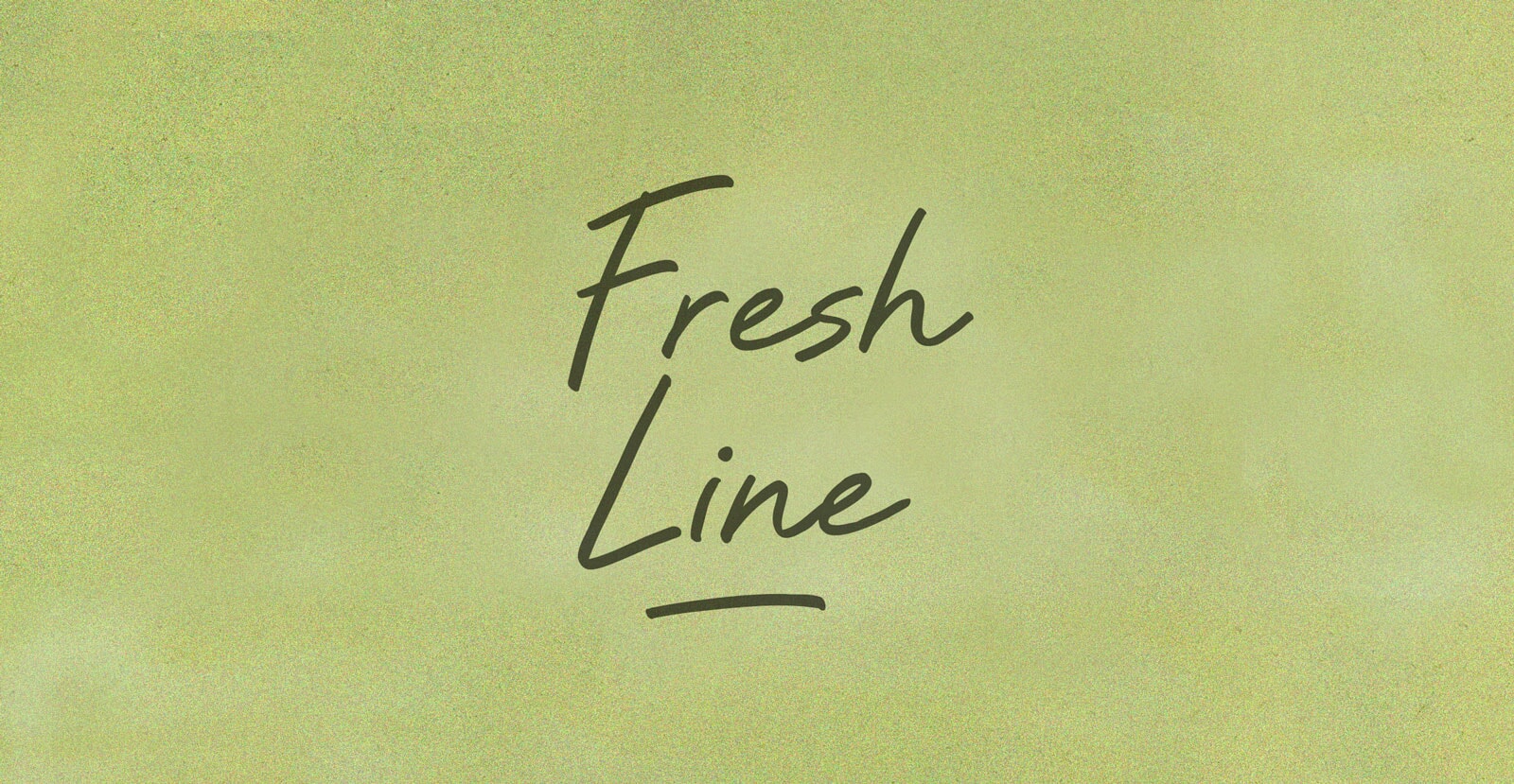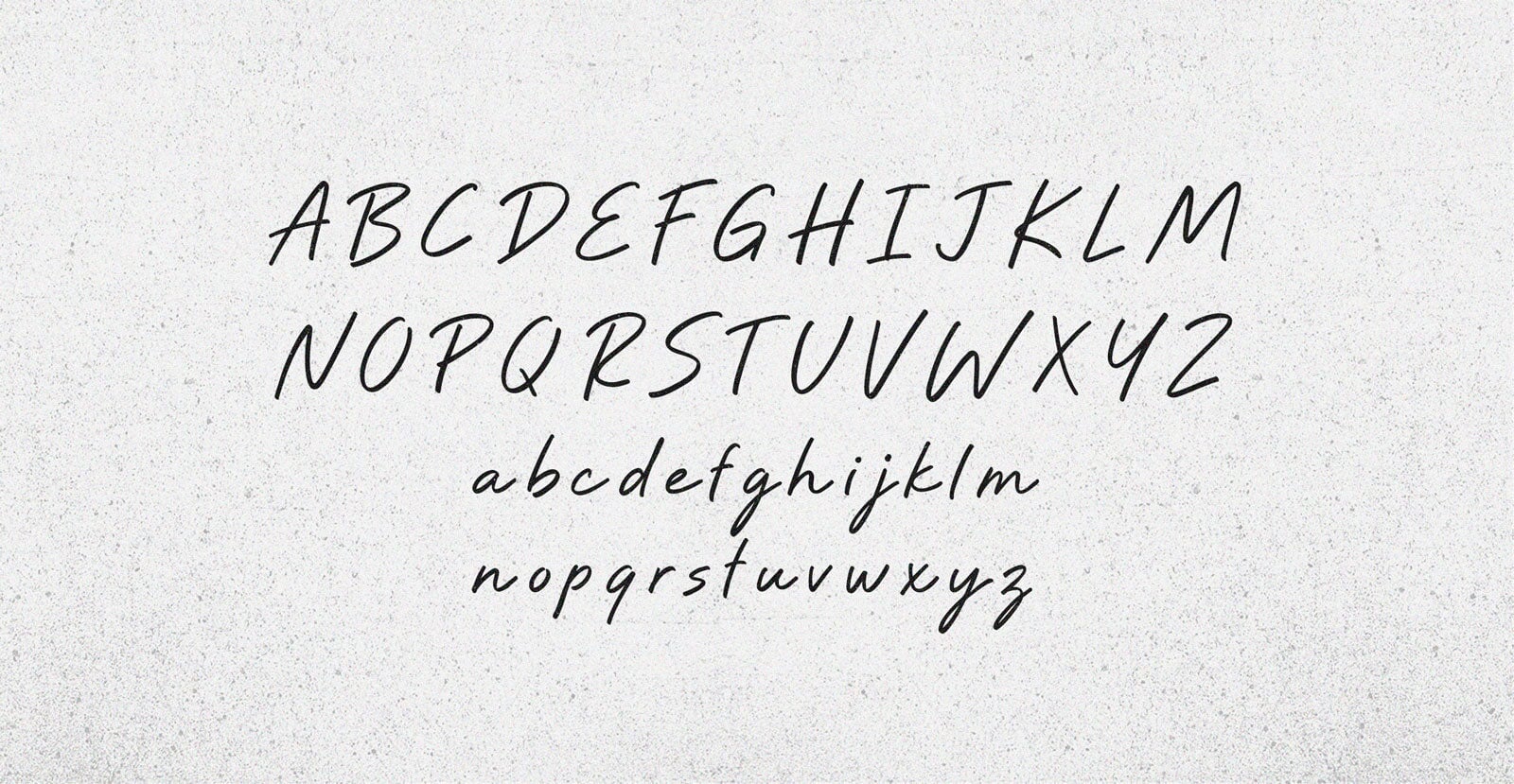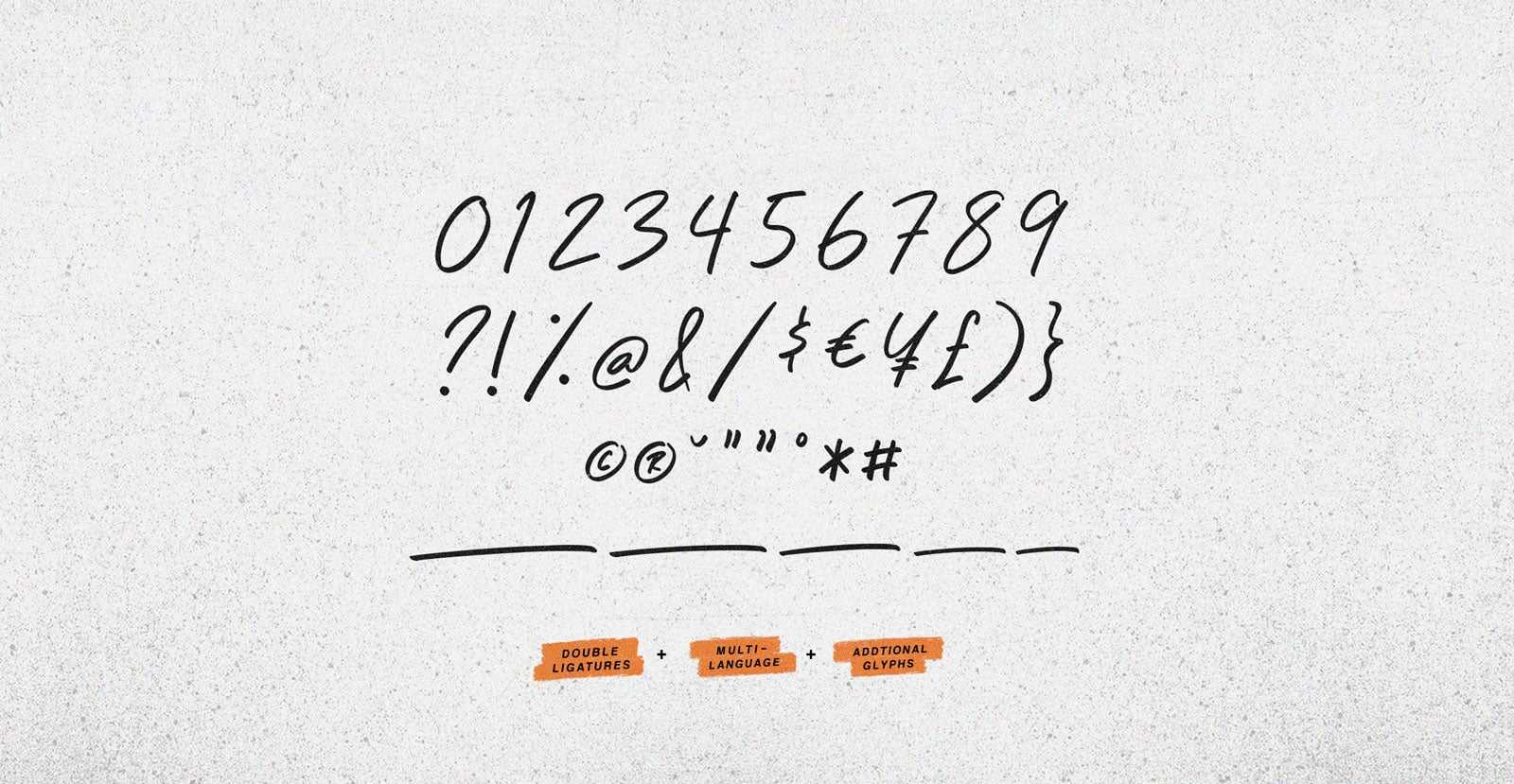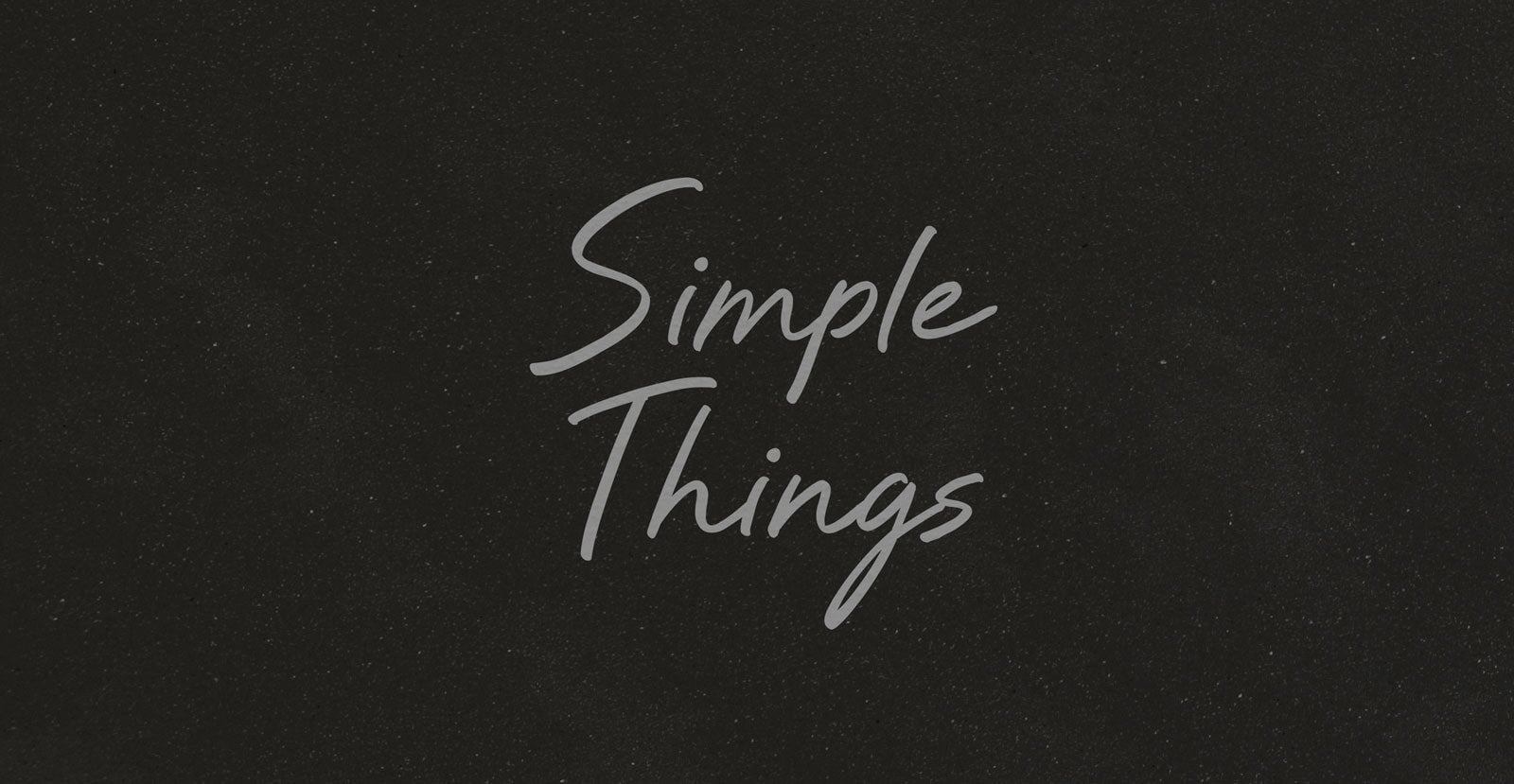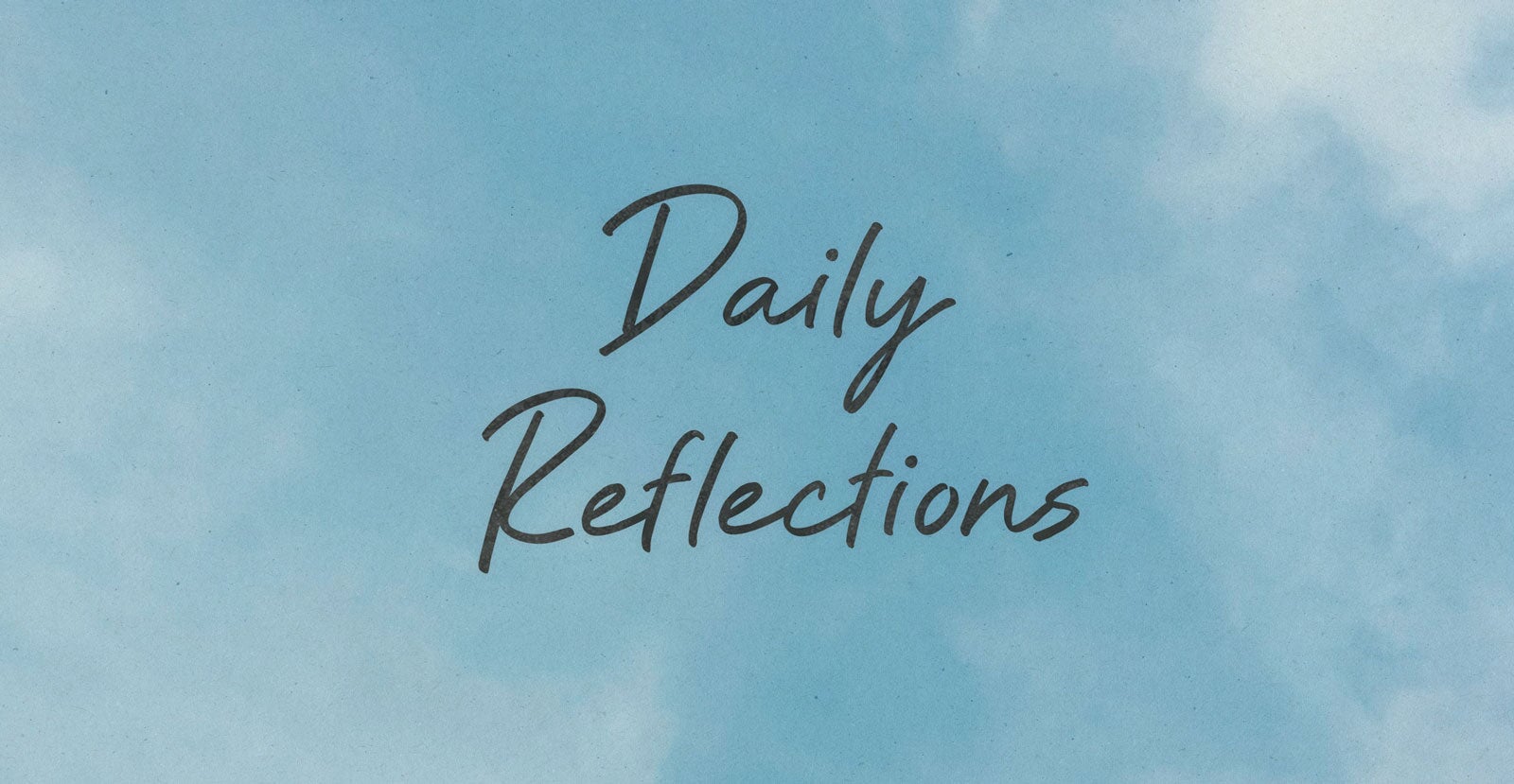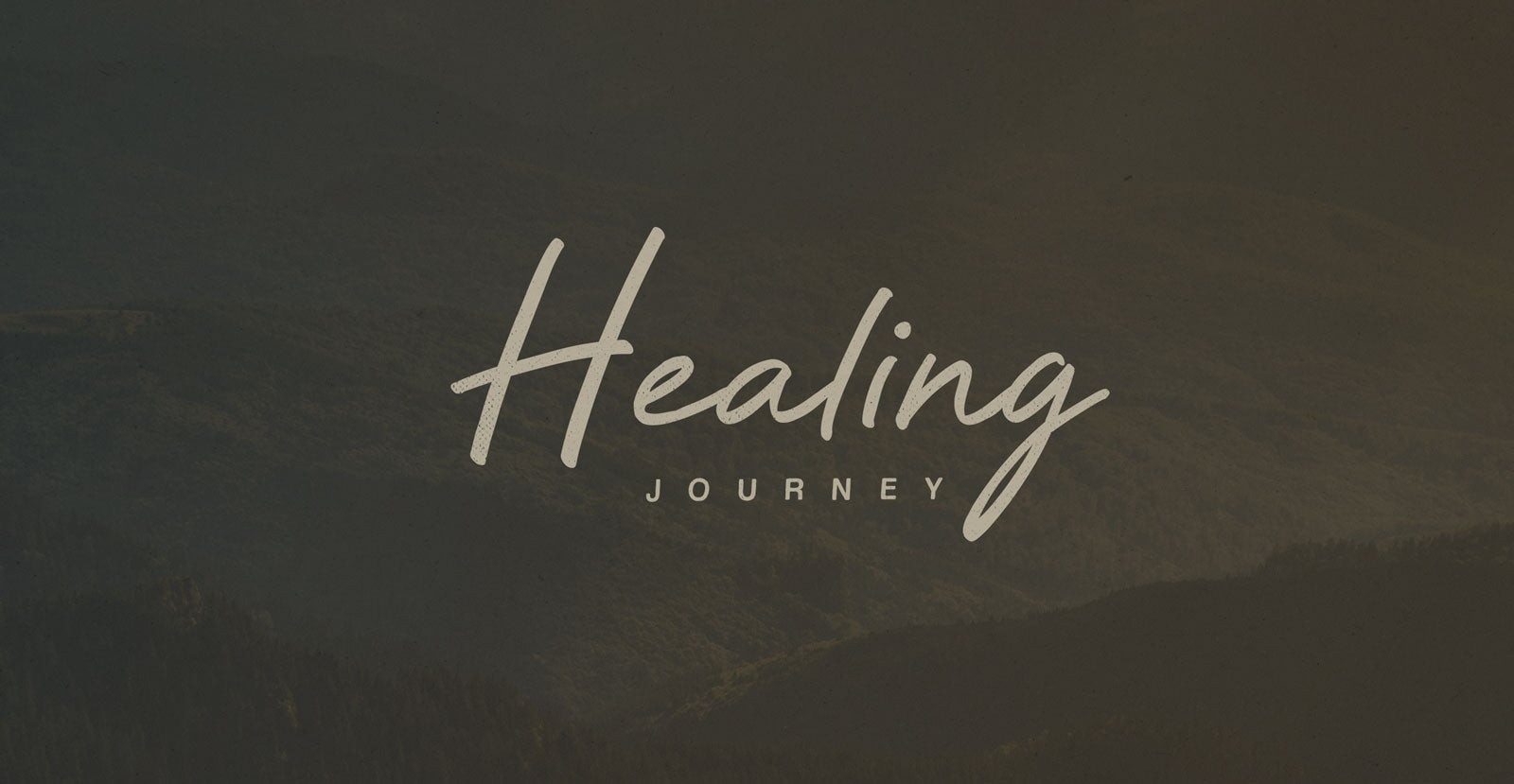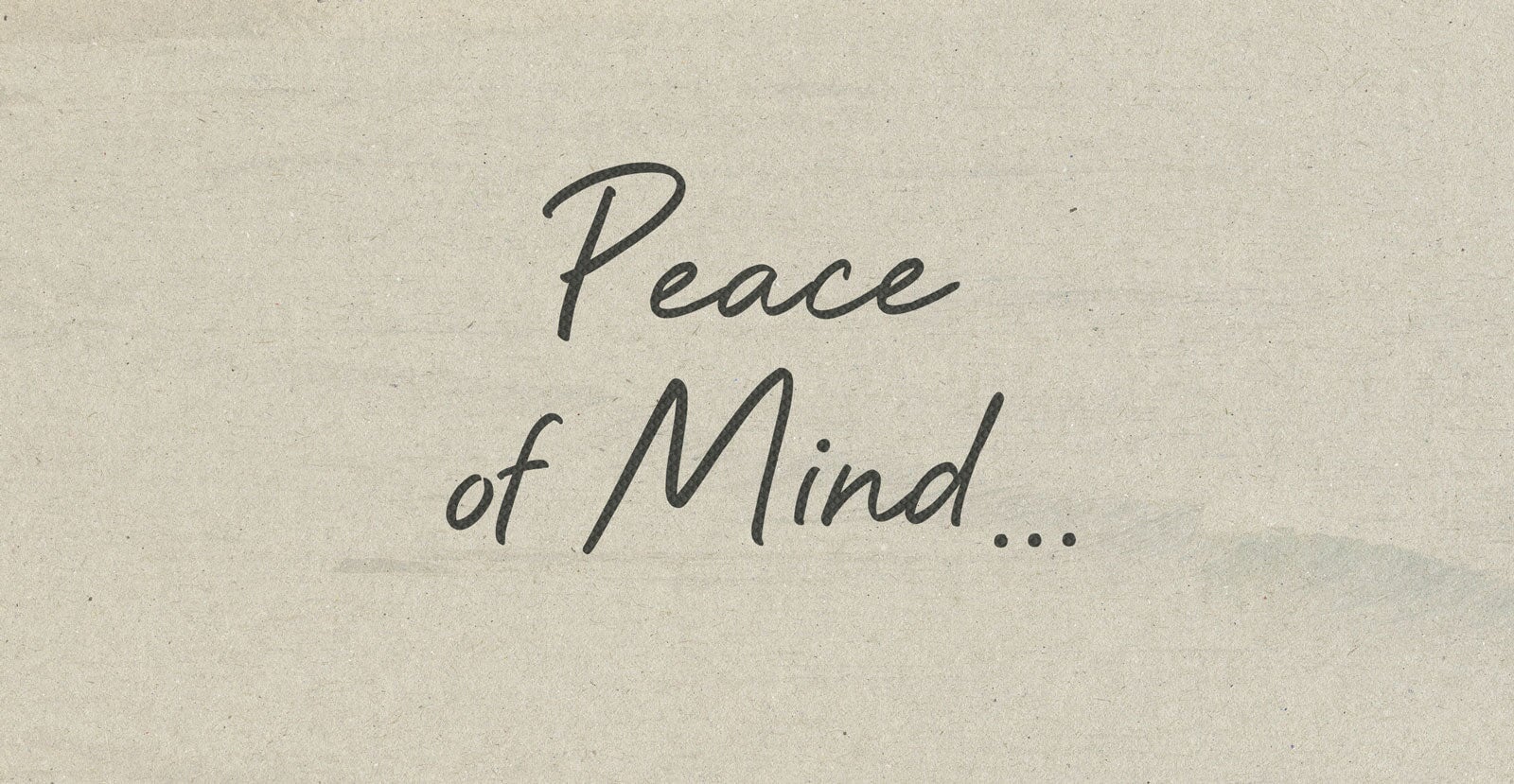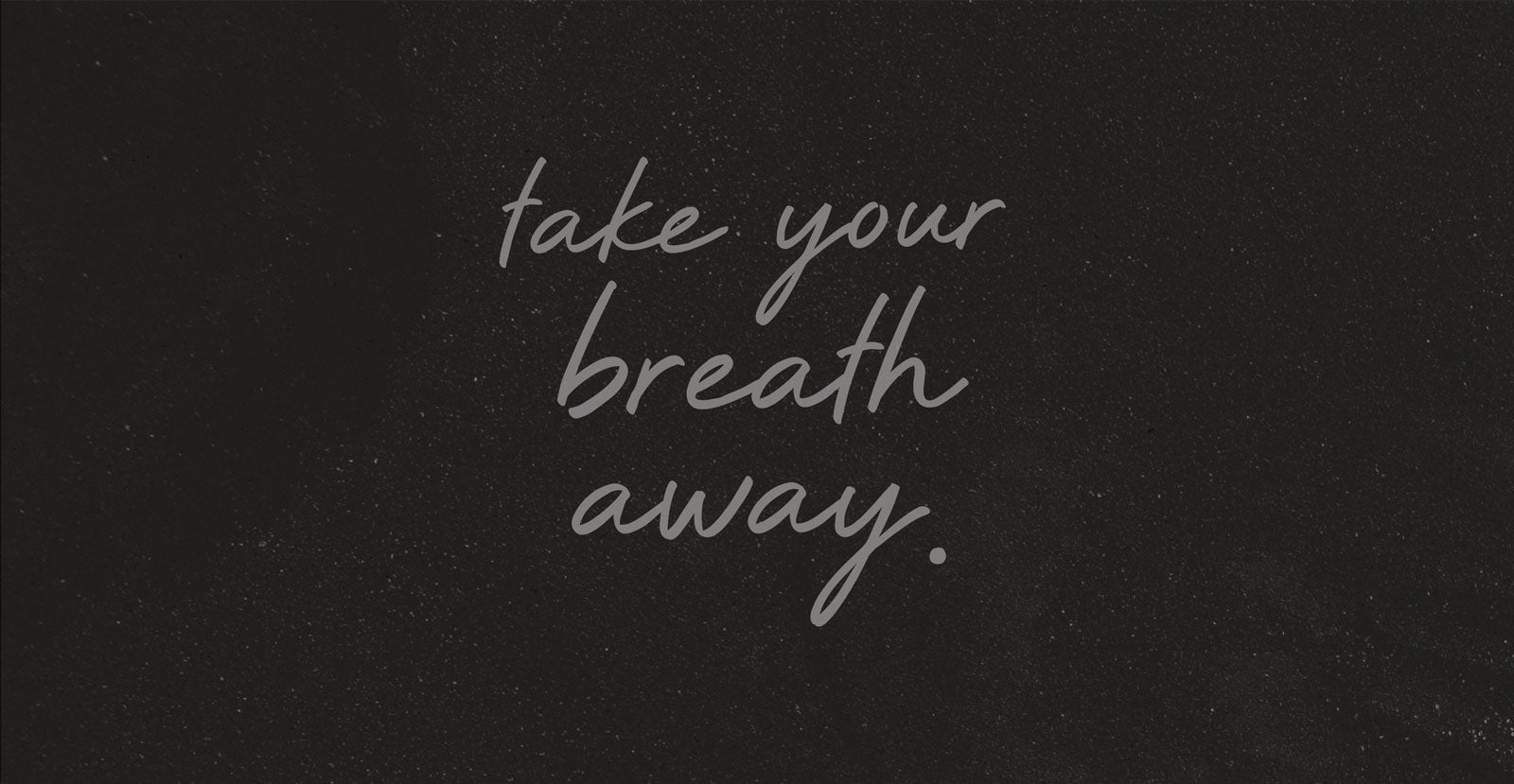
Fresh Line
Cuts clean through the static. Crispy and full of freshness. It feels like a reset, sharp air, blank space, and the sense that something new just began.